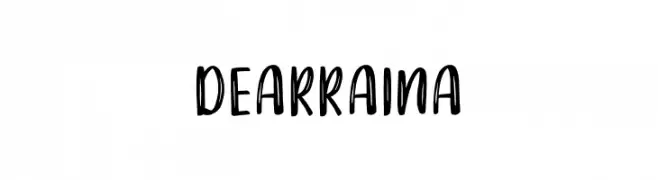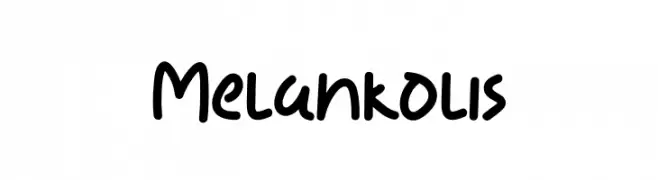
A playful handwritten font with flowing, irregular letterforms.
A playful and whimsical script font with elegant curves and decorative swashes.
A bold, jagged font with a broken glass effect, ideal for impactful designs.
A playful, handwritten font with rounded edges and a casual, friendly appearance.
A flowing, handwritten font with a casual elegance.
A bold, playful handwritten font with dynamic, irregular strokes.
A bold, expressive handwritten font with dynamic strokes and a personal touch.
A playful, handwritten font with a casual and friendly appearance.
An abstract, camouflage-inspired decorative font with bold, irregular shapes.
A lively and elegant script font with fluid, cursive strokes.